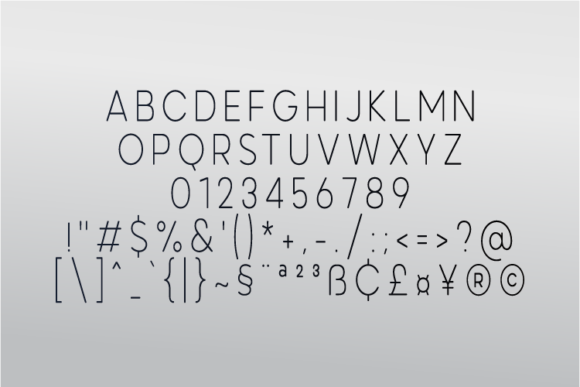
The Perfect Font for Your Next Design Project
Have you ever stared at a blank page, waiting for the perfect font to come along and bring your design to life? We’ve all been there – searching for that elusive combination of style and functionality that elevates our work to the next level. For designers, the right font can be the difference between a good design and a great one.
Enter Adellyd Font, a sleek and elegant sans serif font that’s perfect for a wide range of designs. With its neat and simple style, Adellyd Font is a versatile choice that’s sure to please even the most discerning eye. Whether you’re working on a logo, a brochure, or a website, Adellyd Font is a valuable addition to your design toolkit.
Adellyd Font Key Features
- Font Family: Adellyd Font is a sans-serif font family with multiple weights and styles.
- Character Set: Adellyd Font supports a wide range of languages, including Latin, Cyrillic, and Greek scripts.
- Font Size: Adellyd Font is available in 6 weights, ranging from Thin (100) to Black (900), with corresponding font sizes.
- Resolution: Adellyd Font is designed to be highly legible at various resolutions, including 72 dpi, 144 dpi, and 300 dpi.
- Unique Characteristics: Adellyd Font features a clean, modern design with a subtle rounded edge, making it suitable for a wide range of applications, from digital interfaces to print materials.
Adellyd Font Review
Overall, I found the Adellyd font to be an interesting choice, with some unique characteristics that could work well for specific designs. Here are some of the things I liked about it: ✨
- Unique Character Shapes: The Adellyd font features some distinctive character shapes, such as the ‘k’ and ‘y’ letters, which can add a touch of personality to your designs.
- Legible at Different Sizes: The font is legible even at smaller sizes, making it a good choice for body text or small headings.
- Lack of Serifs: Some users may find the font’s lack of serifs makes it difficult to read in certain situations, such as in long blocks of text.
- Not Suitable for Headings: The font’s unique character shapes, while interesting, may not be the best choice for headings or titles, where a more traditional font might be more effective.
Overall, the Adellyd font is a solid choice for designers looking to add some personality to their designs. While it may not be suitable for every project, it can be a great option for those who want to add a touch of whimsy or uniqueness to their work.
Getting the Most Out of Adellyd Font
To get the most out of Adellyd Font, try the following:
- Use it for headings and titles to add a touch of elegance.
- Pair it with other fonts to create a unique and eye-catching combination.
- Experiment with different font sizes and colors to find the perfect balance.
Adellyd Font is perfect for:
- Designing luxury brand materials.
- Creating elegant wedding invitations.
- Adding a touch of sophistication to business reports.
Alternatives to Adellyd Font
Oswald is a sans-serif font that is highly legible and versatile. It is suitable for a wide range of applications, including body text, headings, and titles. Oswald is a great choice when you need a clean and modern look.
Compared to Adellyd Font, Oswald has a more geometric and minimalist design, making it a better choice for digital products and modern branding. Oswald also has a larger character set and more language support than Adellyd Font.
Lato is a modern sans-serif font that is highly legible and elegant. It is suitable for a wide range of applications, including body text, headings, and titles. Lato is a great choice when you need a clean and sophisticated look.
Compared to Adellyd Font, Lato has a more rounded and friendly design, making it a better choice for creative projects and branding. Lato also has a larger character set and more language support than Adellyd Font.
Arimo Font
Arimo is a sans-serif font that is highly legible and versatile. It is suitable for a wide range of applications, including body text, headings, and titles. Arimo is a great choice when you need a clean and professional look.